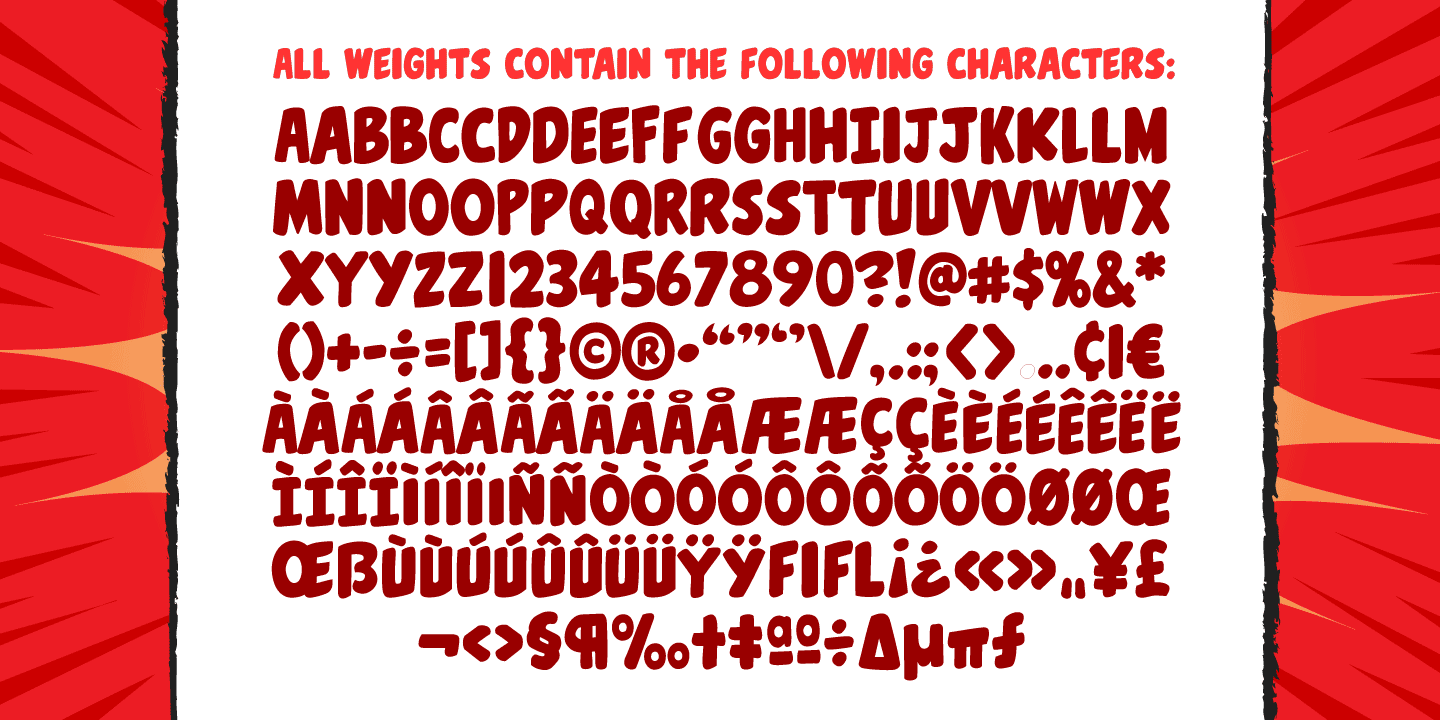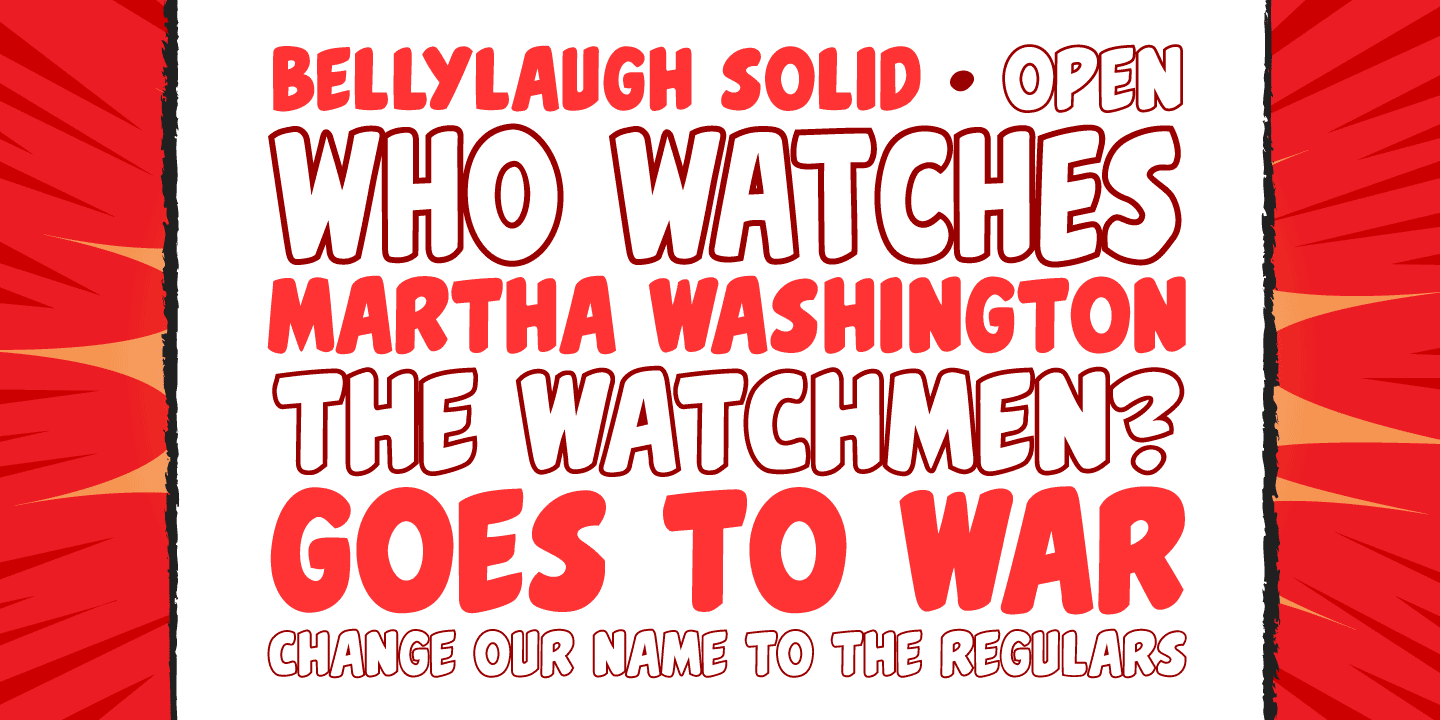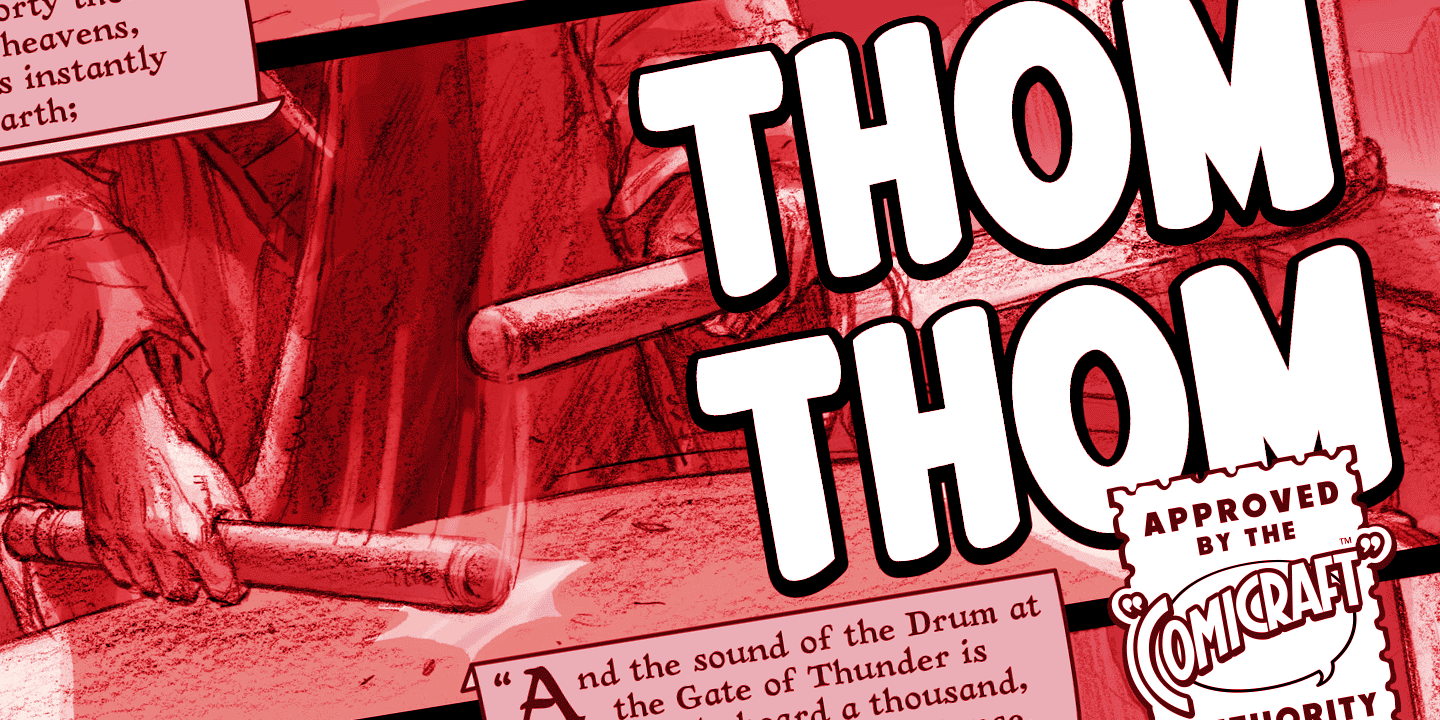
Belly Laugh
Font Family by Comicraft Fonts
When we asked Dave Gibbons to name the typestyle he created for the sound effects in GIVE ME LIBERTY, he must've thought we were kidding. So we humored him, and now you can get in on the joke when you use BELLY LAUGH.